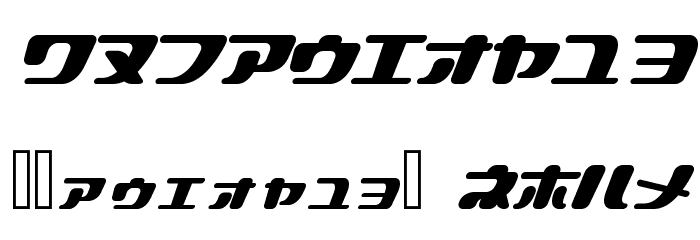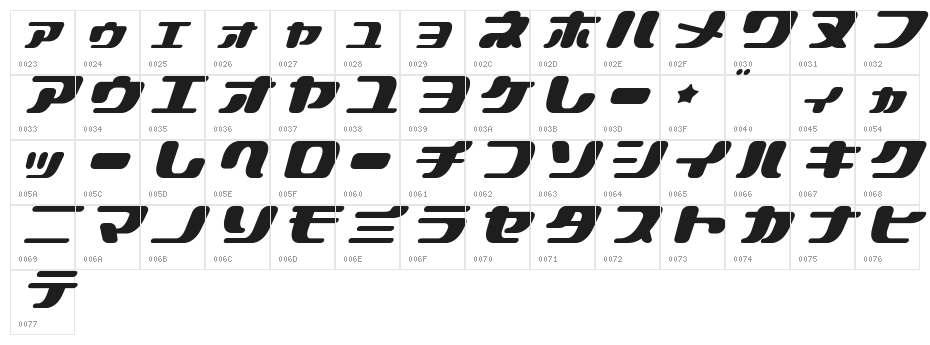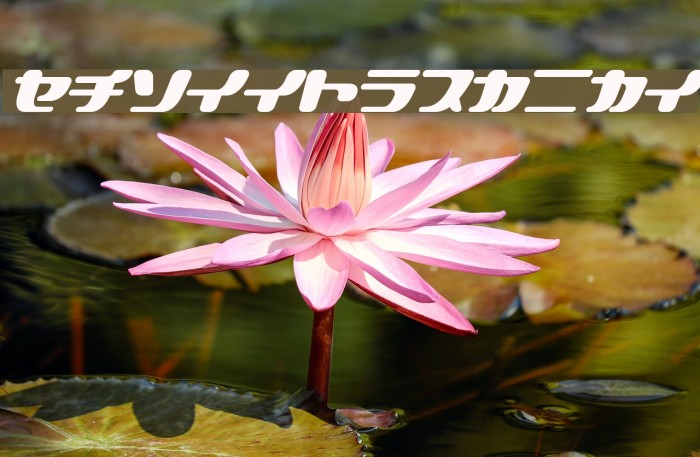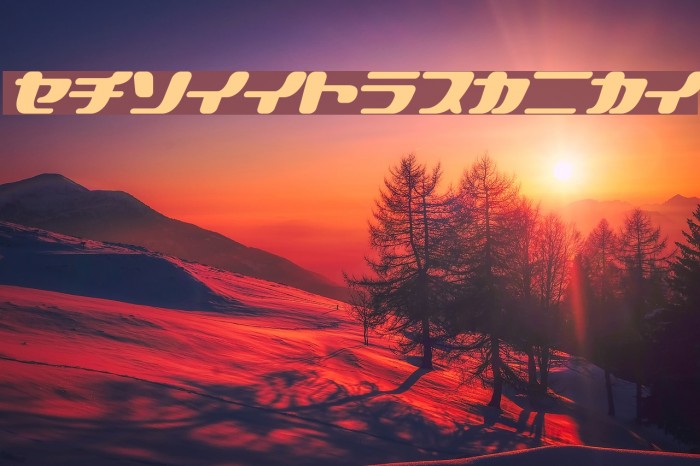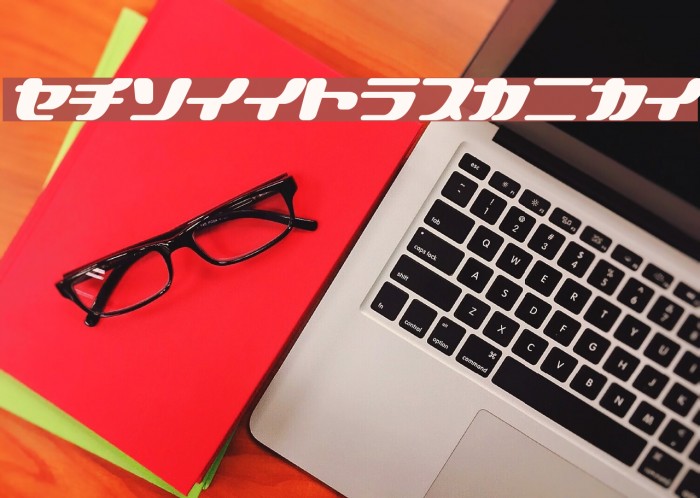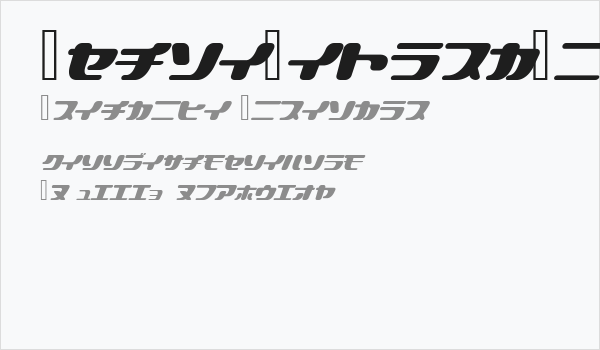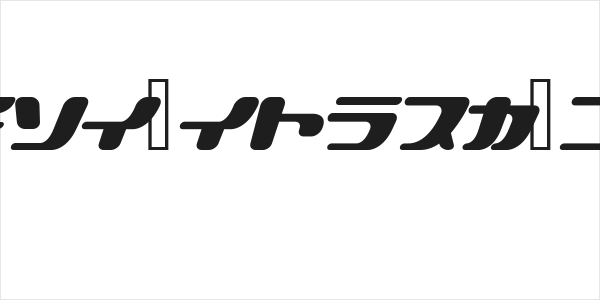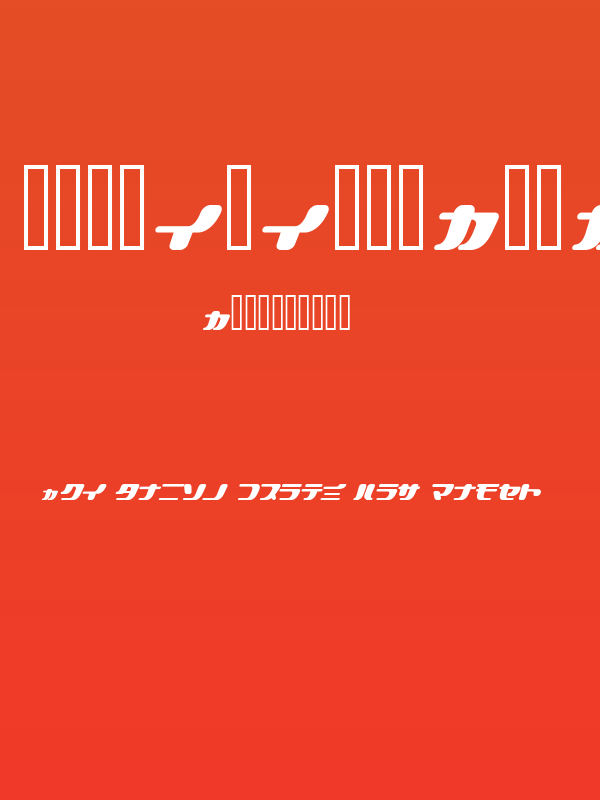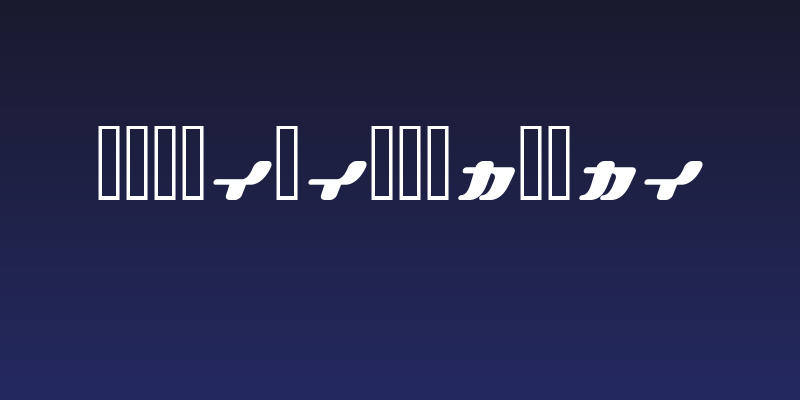
SpaceResortLite Font
SpaceResortLite Description
This font features a futuristic and sleek design, characterized by its bold and dynamic letterforms. The characters are slightly italicized, giving a sense of motion and speed. The strokes are thick and consistent, providing a strong visual impact. The overall style is modern and tech-inspired, making it suitable for projects that aim to convey innovation and forward-thinking. The spacing between characters is tight, enhancing the compact and cohesive appearance of the text. This font is ideal for headlines, logos, and branding materials that require a contemporary and cutting-edge look.